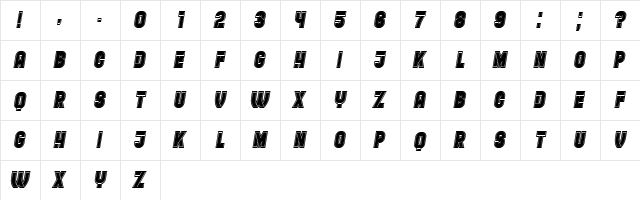
Restaurant Menu Book College Regular
Design Context for Restaurant Menu Book College Typeface
Restaurant Menu Book College brings high-energy athletic personality to the page — its confident, muscular forms are built for impact.
Built for sports team identities, athletic apparel, event posters, and high-energy promotional material.
Pro Tip: Restaurant Menu Book College thrives on contrast — try it large, bold, and tight against a clean background for maximum visual impact.